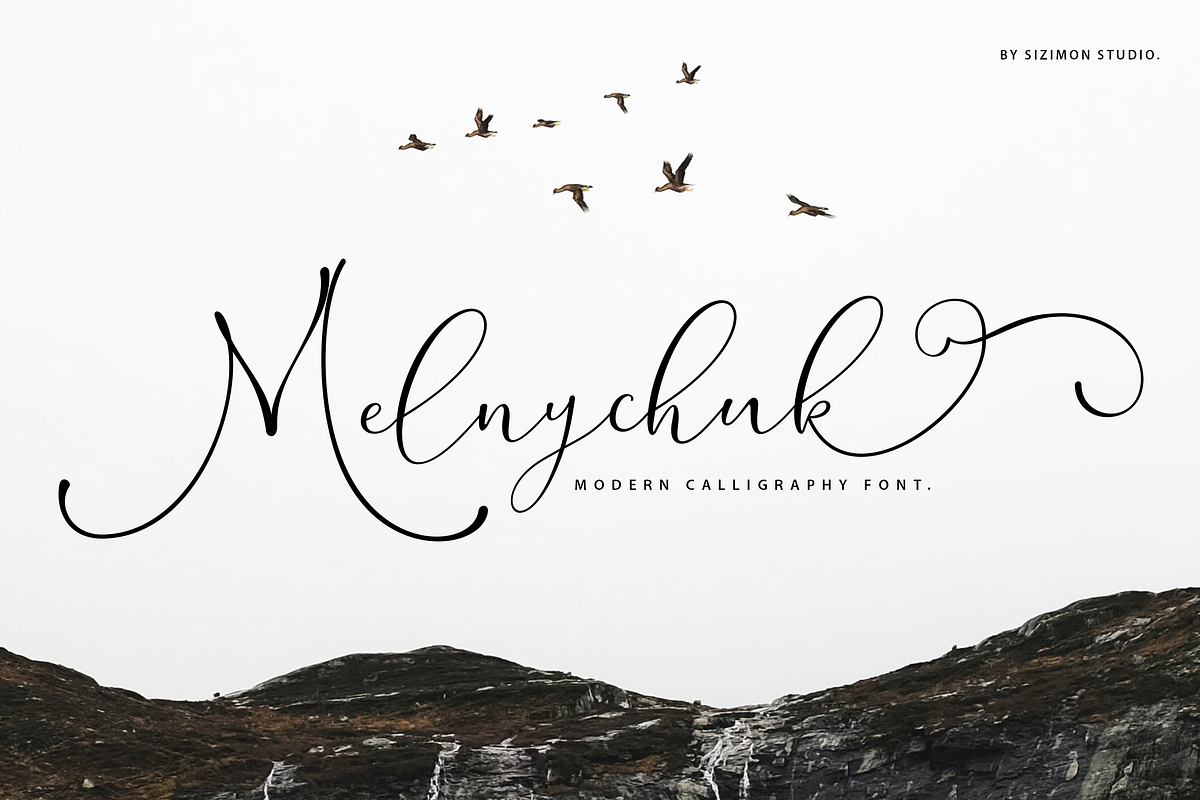
Melnychuk Elegant Script Font Free Download is a sophisticated and graceful handwritten script typeface that adds elegance and refinement to your designs. With its flowing letterforms and intricate flourishes, this font is perfect for luxury branding, wedding invitations, greeting cards, logos, and any project that requires a stylish, elegant touch.
Using the Melnychuk Elegant Script Font Free Download brings a high-end, artistic quality to your work. Whether you’re crafting a romantic invitation, a high-fashion logo, or personalized stationery, this font adds a timeless charm and refinement to your typography.